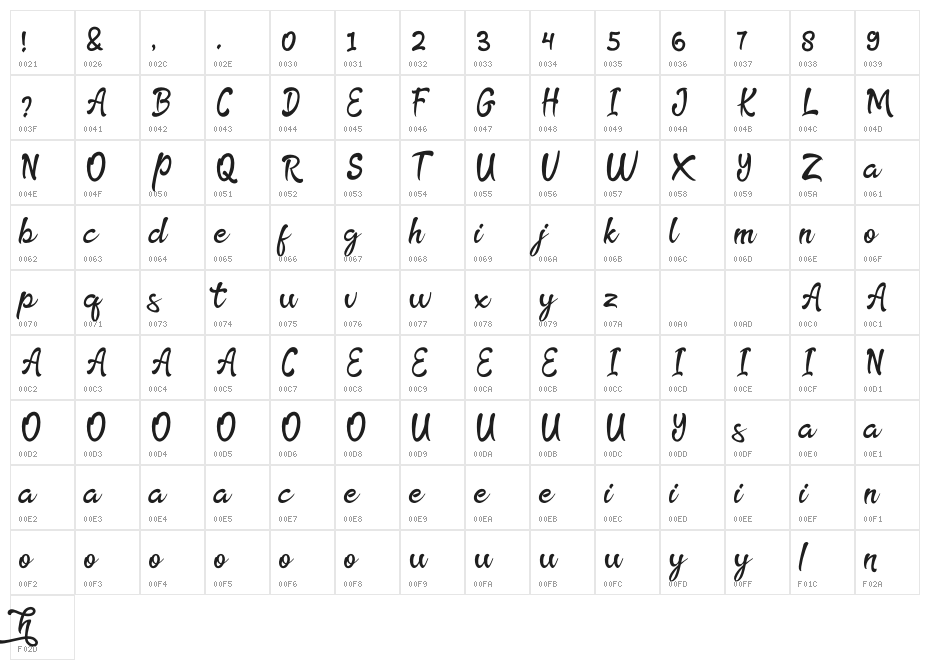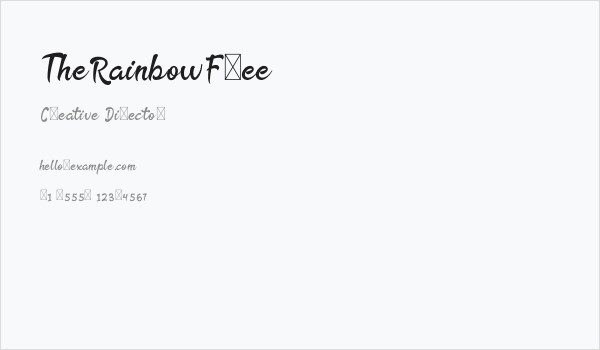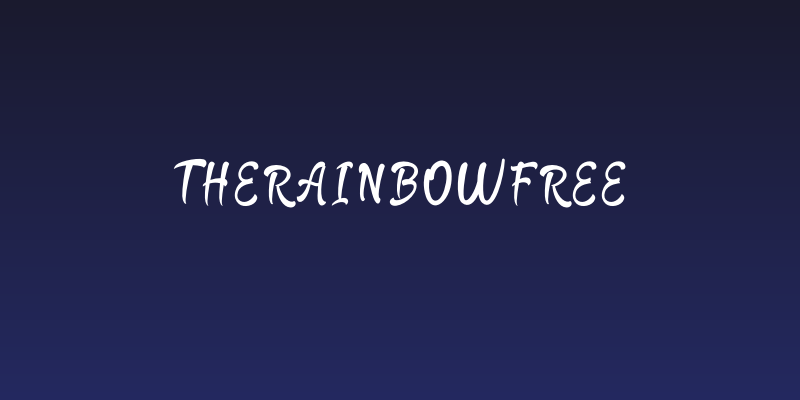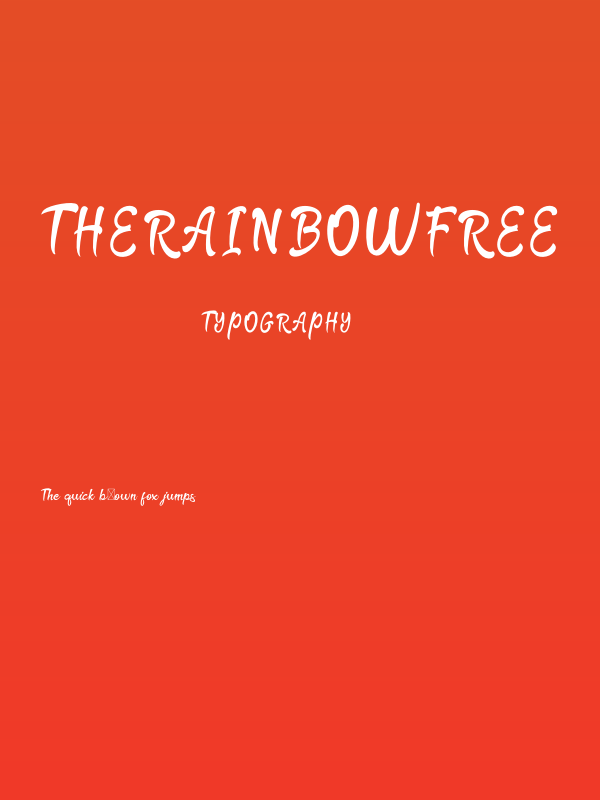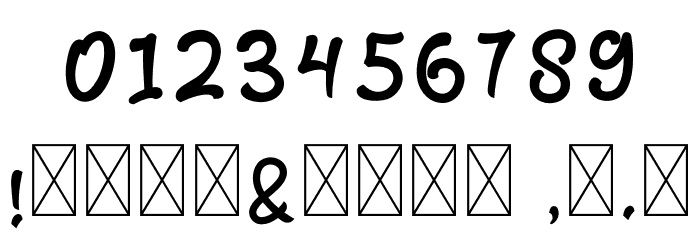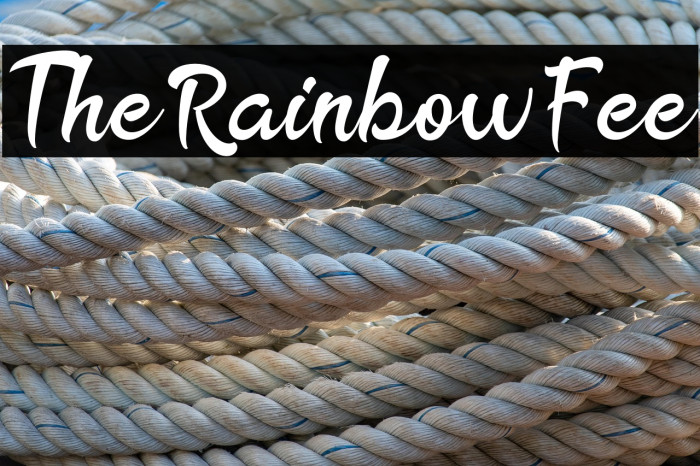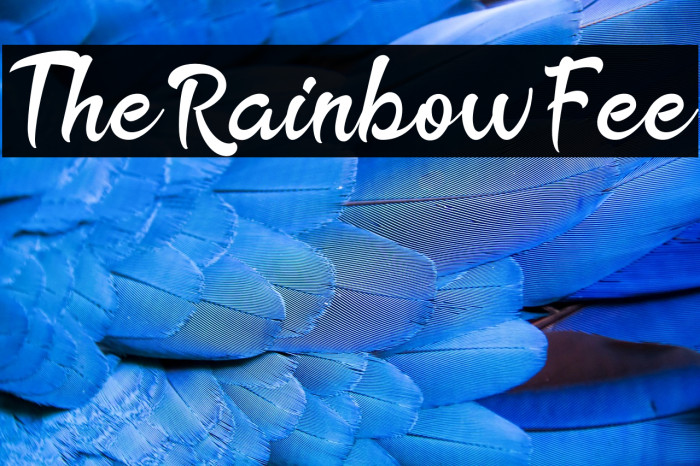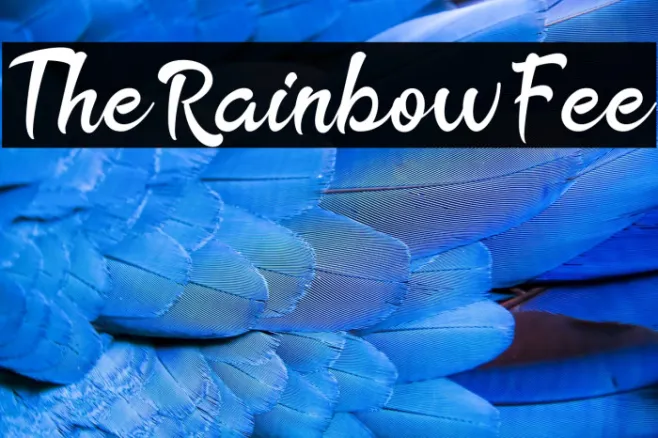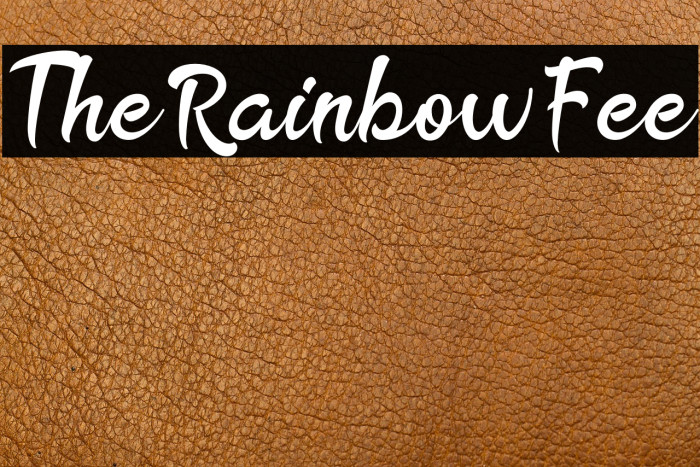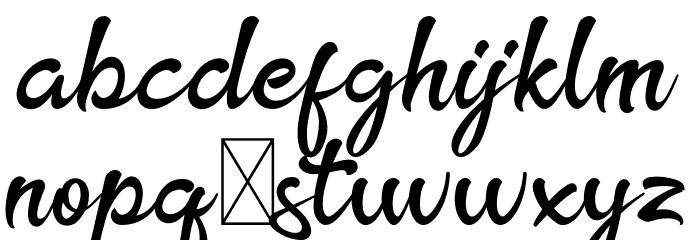
TheRainbowFree Font
TheRainbowFree Description
This font exhibits a flowing, cursive style with a modern twist, characterized by smooth, elegant curves and a consistent stroke width. The uppercase letters are bold and slightly slanted, giving a sense of movement and grace. The lowercase letters maintain a similar style, with some letters featuring distinctive loops and swashes that enhance the font's decorative appeal. The numerals are clear and easy to read, maintaining the same fluid style as the letters. The special characters complement the overall design, making it suitable for a variety of creative applications.